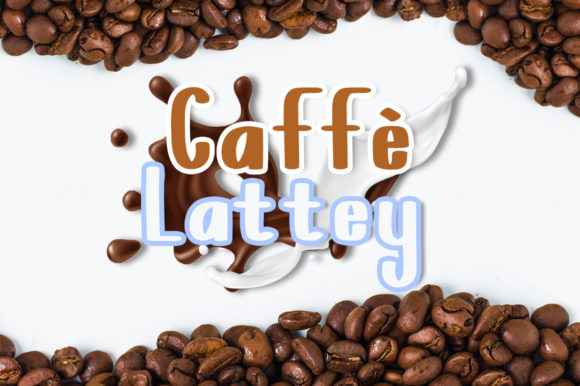
The Perfect Cup: Discovering the Delightful Caffe Lattey Font
As a designer, I’ve had my fair share of late nights and early mornings, but one thing that’s always got me going is a good cup of coffee. And when I’m working on a project, there’s nothing like a font that captures the essence of my beloved brew. That’s where the Caffe Lattey font comes in – a fun, authentic, and cool display font that’s sure to perk up your designs.
A Design Moment of Truth
I recall working on a branding project for a local coffee shop. The client wanted a font that would reflect their cozy, artisanal vibe, but I was struggling to find the perfect fit. That’s when I stumbled upon Caffe Lattey, and it was love at first sight! The font’s playful, hand-crafted feel instantly resonated with the client’s aesthetic, and I knew I had found the perfect match.
So, what makes Caffe Lattey so special? Let’s dive into the good stuff:
- ✨ Unique, hand-drawn design that’s sure to stand out
- ✅ Authentic coffee shop feel that’s perfect for branding and advertising
- 💥 Highly legible, even at smaller sizes
Of course, no font is perfect, and Caffe Lattey has a few minor quirks:
- 🤔 Limited use of lowercase letters, which may not be ideal for body text
- ⚠️ Some glyphs may not work well with certain OpenType features
The Story Behind Caffe Lattey
Caffe Lattey was designed with coffee lovers in mind. The font’s creator, a passionate designer and coffee aficionado, wanted to capture the warmth and coziness of a coffee shop in a font. With its unique, hand-drawn design, Caffe Lattey is sure to bring a smile to the face of anyone who’s ever savored a cup of coffee.
| Font Name | Caffe Lattey Font |
| Author | KomsaynCreative |
| What is Caffe Lattey font best used for? | Caffe Lattey is perfect for branding, advertising, and design projects that require a fun, authentic, and coffee-themed font. |
| Does Caffe Lattey support OpenType features? | Yes, Caffe Lattey supports OpenType features, including glyphs and stylistic alternates. |